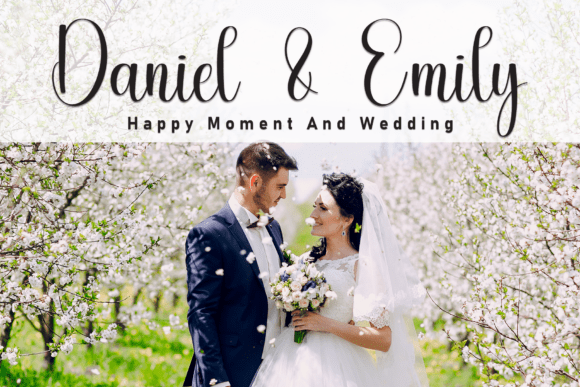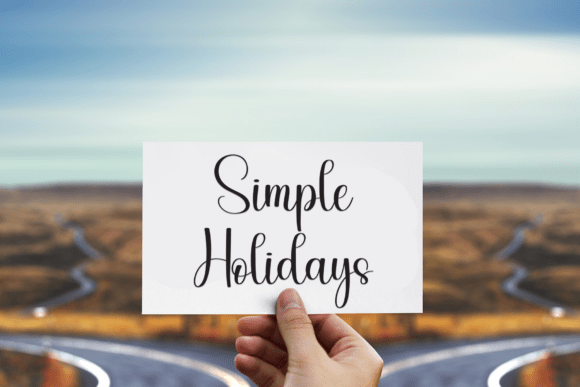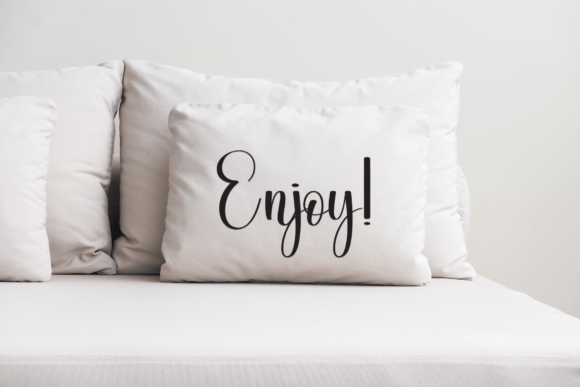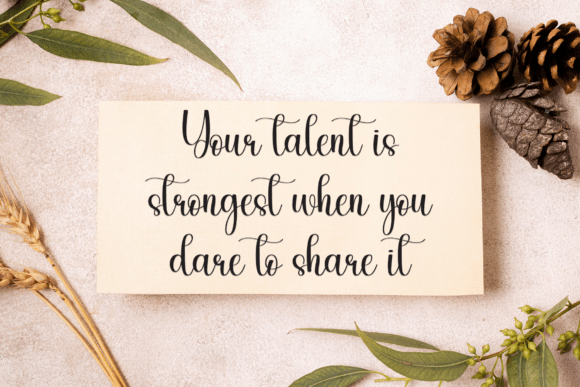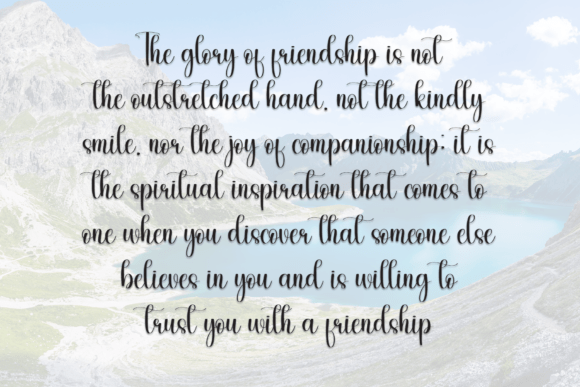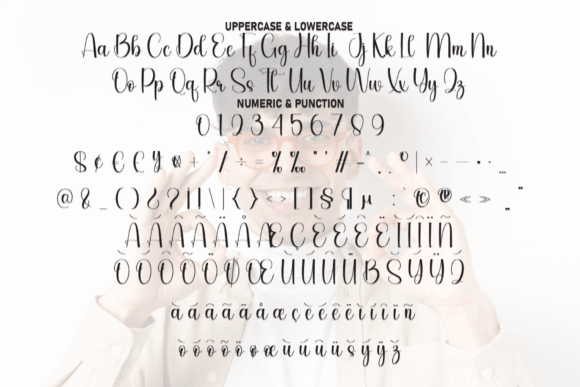
Discover the Enchanting Charm of Authentic Fonts: Elevate Your Designs with a Handcrafted Display Font
In the realm of typography, few elements have the power to transform a design as profoundly as a meticulously crafted display font. Imagine a font that not only captures attention but also infuses your creations with a radiating and welcoming charm. A font that turns every project, whether it’s a wedding invitation, holiday greeting, or love letter, into a captivating masterpiece. Welcome to the world of authentic fonts, where the art of typography meets unparalleled creativity.
The Essence of a Handcrafted Display Font
At the heart of every authentic font lies a story of meticulous craftsmanship. This handcrafted display font is no exception. With a vivacious personality that shines through in every letter, it has the unique ability to transfigure everything it touches. Whether you’re a designer looking to elevate your portfolio or a crafter seeking to add a personal touch to your projects, this font is designed to inspire.
A Journey Through Visual Delight
Typography is not just about conveying a message; it’s about evoking emotions. This authentic font, with its unique quirkiness, makes your designs stand out in a crowd. It radiates an undeniable mixture of joy, warmth, and innovation, turning even the simplest text into a visual delight. Imagine being able to convey the depth of your feelings through a font that echoes the sentiments intertwined in your words with captivating allure.
One of the most remarkable features of this handcrafted display font is its versatility. Whether you’re working on tender love letters, lively party invitations, or festive holiday greetings, this font adapts seamlessly. Its remarkably expressive typeface brings out the best in your designs, making them not just visually appealing but also deeply engaging.
Why Choose an Authentic Font?
In a digital age where uniformity can often feel overwhelming, an authentic font offers a breath of fresh air. It’s not just a typeface; it’s a statement. A statement that says you value uniqueness, creativity, and the art of communication. By choosing this handcrafted display font, you’re not just selecting a font; you’re embracing a design philosophy that prioritizes personality and charm.
So, how can you make the most of this authentic font? Here are a few tips:
- Experiment with Sizes and Colors: Don’t be afraid to play around with different sizes and colors. The right combination can elevate your design and make it truly unforgettable.
- Mix and Match: Combine this handcrafted display font with other typefaces for a unique look. The contrast can add depth and interest to your designs.
- Pay Attention to Details: The beauty of a handcrafted font lies in its details. Make sure to use it at a resolution that does justice to its intricate design.
In the world of design, fonts are more than just a means to convey a message; they’re an expression of creativity and personality. This authentic, handcrafted display font offers a unique opportunity to infuse your designs with a radiating and welcoming charm. Whether you’re a seasoned designer or a passionate crafter, it’s time to discover the spellbinding allure of authentic fonts. Elevate your creations, inspire your audience, and make your designs the showstopper they were meant to be.
Embark on a journey through visual delight with this captivating font. Let its vivacious personality and undeniable charm turn your projects into masterpieces that inspire and engage. With its versatility, quirkiness, and expressive typeface, this handcrafted display font is your key to unlocking a world of creative possibilities.